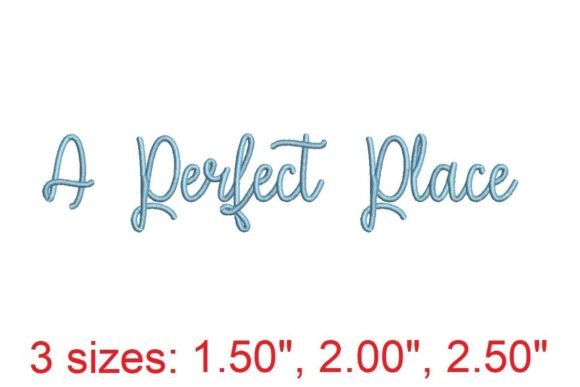
A Perfect Place Embroidery Font
As an embroidery designer with years of experience, I’ve had the pleasure of working with countless machine embroidery designs. But when it comes to seasonal and holiday product use, few fonts capture the essence of celebration and elegance like A Perfect Place Embroidery Font. This design has quickly become a staple in my seasonal collection, offering a versatile and refined look that resonates with both crafters and customers alike.
The First Impression: A Seasonal Mood That Speaks Volumes
From the moment I laid eyes on A Perfect Place Embroidery Font, I was struck by its sophisticated yet approachable aesthetic. The font exudes a warm, inviting energy that feels perfect for holidays, family gatherings, and personalized gifts. Its decorative style is subtle enough for everyday use but detailed enough to stand out on holiday items like embroidered patches, pillow covers, and tote bags.
The emotional tone of this font leans toward elegance and nostalgia, making it ideal for handmade gifts that feel thoughtfully crafted. Whether you're creating a monogram for a baby item or adding a touch of class to a kitchen towel embroidery, A Perfect Place Embroidery Font brings a sense of timeless charm to any project.
Real-World Performance: How It Shines in Holiday Selling Situations
When building a seasonal shop collection, the right embroidery file can make all the difference. A Perfect Place Embroidery Font performs exceptionally well in real-world scenarios, from Etsy listings to craft fair displays. Its clean lines and balanced proportions ensure that it looks great on a wide range of products, including sweatshirt embroidery, table linens, and even delicate fabric items like baby onesies.
This font also excels in gift bundles and limited edition apparel. Its versatility allows it to be used across multiple product types, helping to maintain brand consistency while appealing to a broad audience. For small shop products, A Perfect Place Embroidery Font offers a premium feel without sacrificing practicality.
One of the standout features of this design is how well it translates into printable mockups and social media previews. Whether you're showcasing a holiday ornament or a personalized apron, the font adds a professional touch that enhances visual recognition and customer trust.
Where to Use It Carefully: Practical Considerations
While A Perfect Place Embroidery Font is highly adaptable, there are certain situations where extra care is needed. On small hoop sizes, the font’s intricate details may not translate as well, so it's best to test on larger hooping areas for optimal results. Tiny lettering can also be a challenge, especially when working with thick towels or dark fabrics, where thread colors may not show up as clearly.
For metallic thread or stretchy garments, it’s important to adjust stitch density and use proper stabilizer to prevent puckering or distortion. Curved caps and items that require repeated washing also demand attention to detail, ensuring the design remains intact over time.
Impact on Seasonal Appeal and Customer Emotion
A Perfect Place Embroidery Font has a unique ability to elevate the perceived value of a product. When used on holiday embroidery or seasonal embroidery projects, it adds a level of sophistication that makes each piece feel more special. This, in turn, enhances the giftability of the finished product and encourages repeat purchases from customers who appreciate quality and craftsmanship.
As an Etsy seller, I’ve noticed that items featuring this font tend to receive more engagement and positive feedback. Customers often comment on how the design feels “personal” and “thoughtful,” which is exactly what we aim for when creating handmade gifts or personalized gifts. The font’s clean, modern look also aligns well with current trends, making it a safe and smart choice for seasonal product drops.
Practical Tips for Embroidery Designers
To get the most out of A Perfect Place Embroidery Font, there are several key steps every designer should take. First, always test thread colors on both light and dark fabric to ensure visibility and vibrancy. Check the stitch density to avoid overcrowding or gaps, and confirm the hoop size required for your specific project.
Using the right stabilizer is crucial, especially when working with delicate or stretchy fabrics. Creating realistic mockups before finalizing a design helps set expectations for customers, and reviewing small details after stitching ensures a polished finish. Planning matching color palettes and confirming commercial licensing before selling finished products are also essential steps for any embroidery designer.
Whether you're working on a digital embroidery file for a holiday ornament or a custom tote bag design, A Perfect Place Embroidery Font offers a reliable and stylish option that meets the needs of both crafters and consumers.
As I continue to build my seasonal collection, I’m confident that A Perfect Place Embroidery Font will remain a go-to choice for its versatility, visual appeal, and emotional impact. Whether you're an Etsy shop owner or a small business owner, this font is sure to add value and distinction to your holiday products.